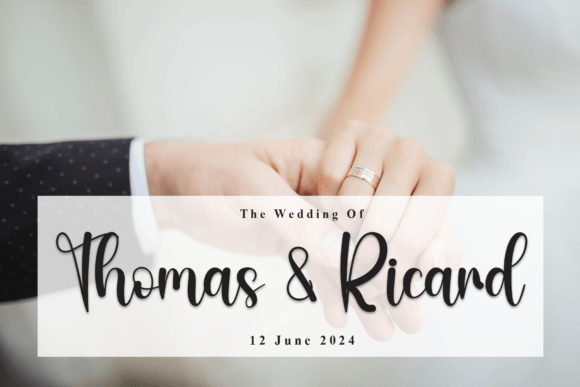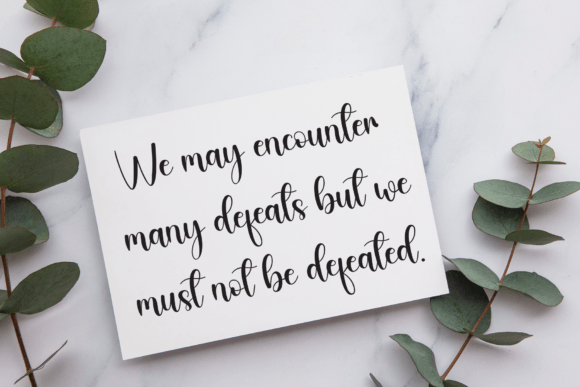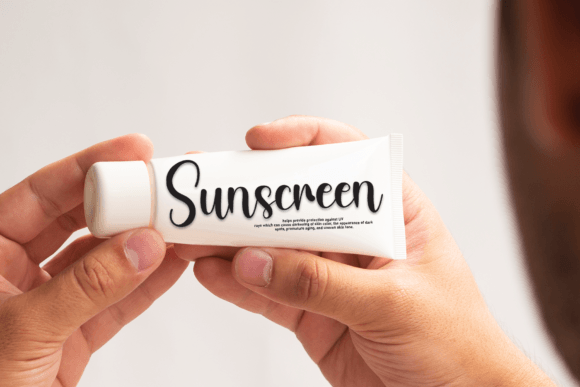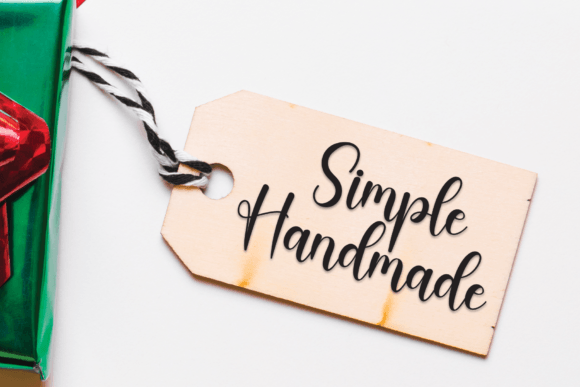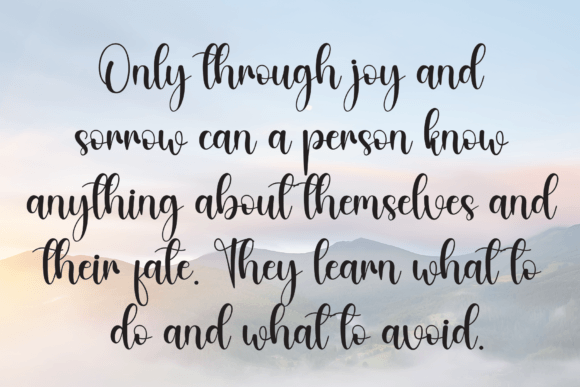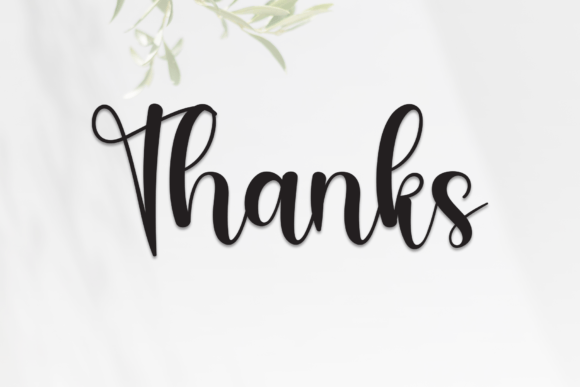
Introducing Budget Font: The Timeless Handwritten Font for Stunning Designs
Are you a designer or crafter looking for a font that can elevate your creative projects? Look no further than Budget Font, a lovely and timeless handwritten font that’s perfect for creating eye-catching logos, branding, and quotes. With its unique and beautiful touch, Budget Font is sure to make your design come alive!
The Characteristics of Budget Font
Budget Font is a handwritten font that exudes a sense of elegance and sophistication. Every letter has a distinct and beautiful touch, which sets it apart from other fonts. The font is carefully crafted to provide a unique and personalized feel, making it perfect for designs that require a human touch.
One of the standout features of Budget Font is its versatility. It can be used for a wide range of design projects, from logos and branding to quotes and social media graphics. The font is highly legible, making it easy to read and understand, even at small sizes.
Why Choose Budget Font?
So, why should you choose Budget Font for your design projects? Here are just a few reasons:
- Unique and Beautiful Touch: Every letter in Budget Font has a unique and beautiful touch that will make your design stand out.
- Timeless Appeal: Budget Font has a timeless appeal that will never go out of style.
- Versatile: Budget Font can be used for a wide range of design projects, from logos and branding to quotes and social media graphics.
- Easily Legible: Budget Font is highly legible, making it easy to read and understand, even at small sizes.
How to Use Budget Font in Your Designs
Using Budget Font in your designs is easy. Here are a few tips to get you started:
- Pair it with Other Fonts: Budget Font pairs well with other fonts, making it easy to create stunning font combinations.
- Use it for Headlines and Titles: Budget Font is perfect for headlines and titles, where its unique and beautiful touch can really shine.
- Add it to Your Branding: Budget Font is a great choice for branding, where its timeless appeal can help to create a lasting impression.
Here are a few tips for designers and crafters who want to get the most out of Budget Font:
- Experiment with Different Sizes: Budget Font looks great at a range of sizes, from small and delicate to large and bold.
- Play with Color: Budget Font looks great in a range of colors, from bright and bold to soft and pastel.
- Use it for Digital and Print Projects: Budget Font is perfect for both digital and print projects, from social media graphics to business cards and brochures.
In conclusion, Budget Font is a timeless handwritten font that’s perfect for designers and crafters who want to create stunning designs. With its unique and beautiful touch, versatility, and timeless appeal, Budget Font is a great choice for a wide range of design projects. Whether you’re creating logos, branding, or quotes, Budget Font is sure to make your design come alive!